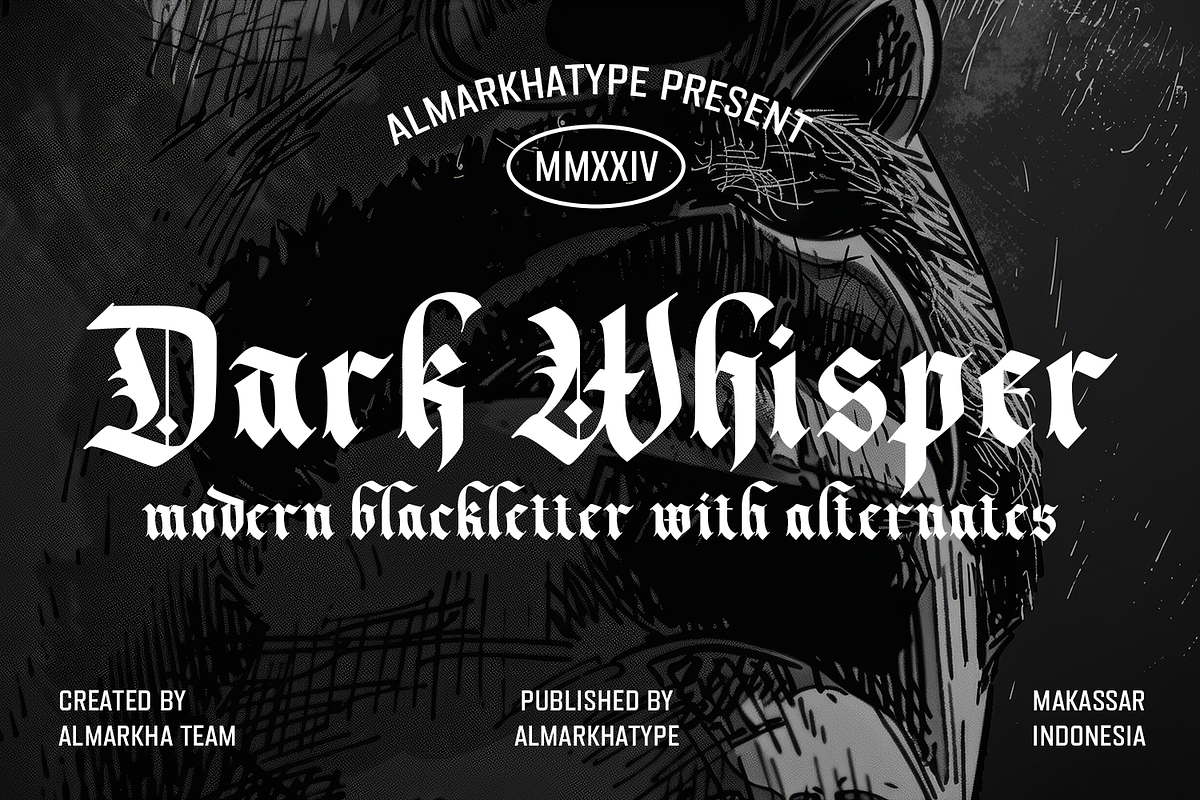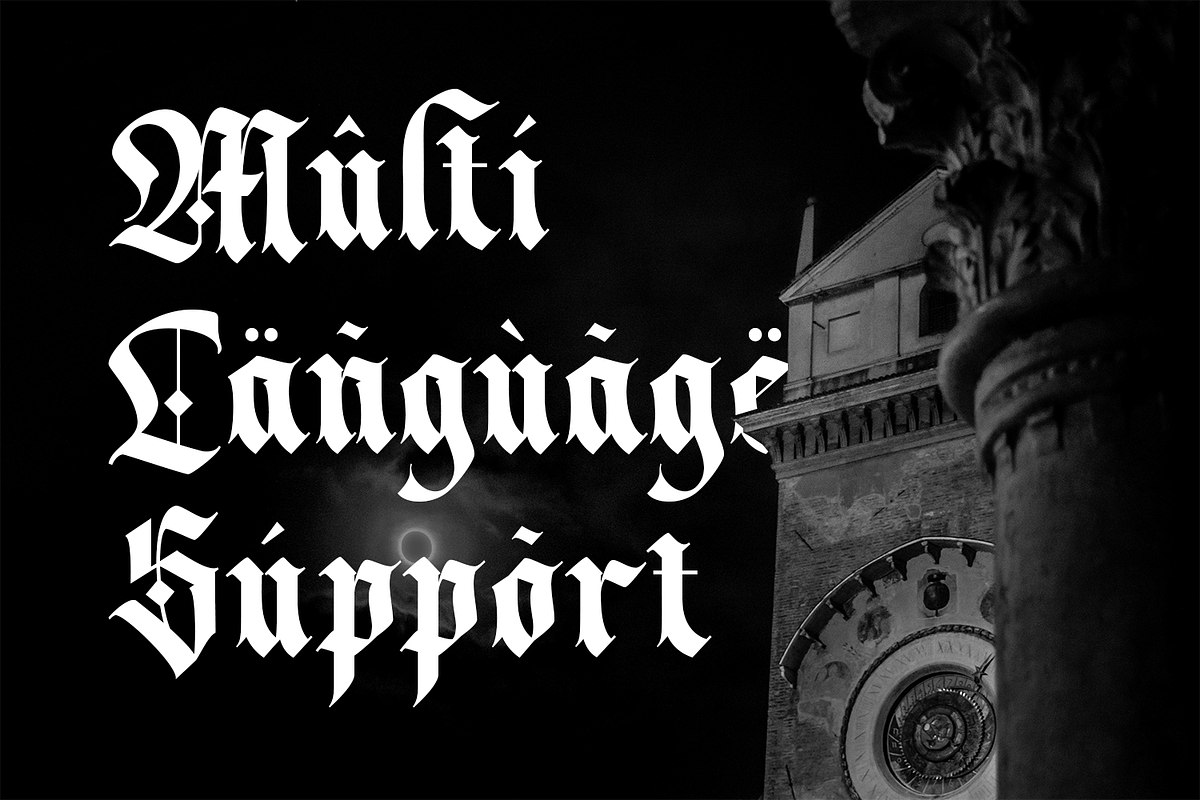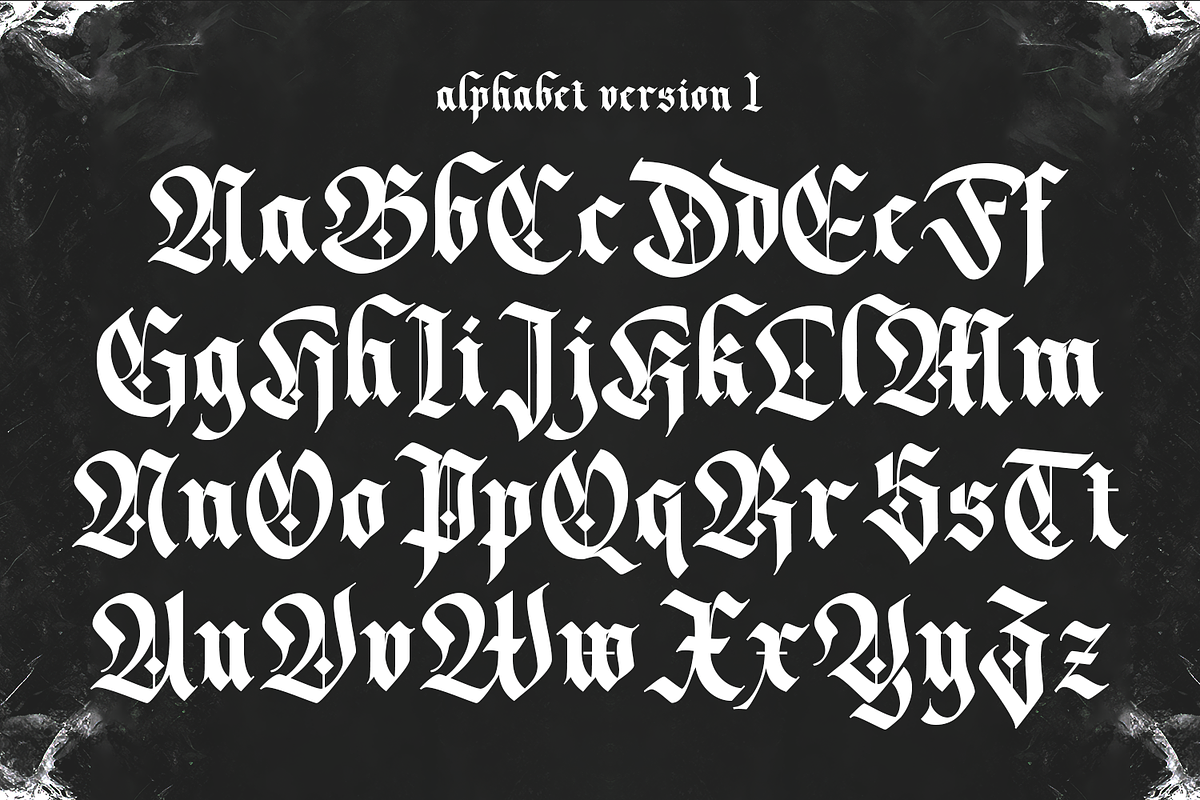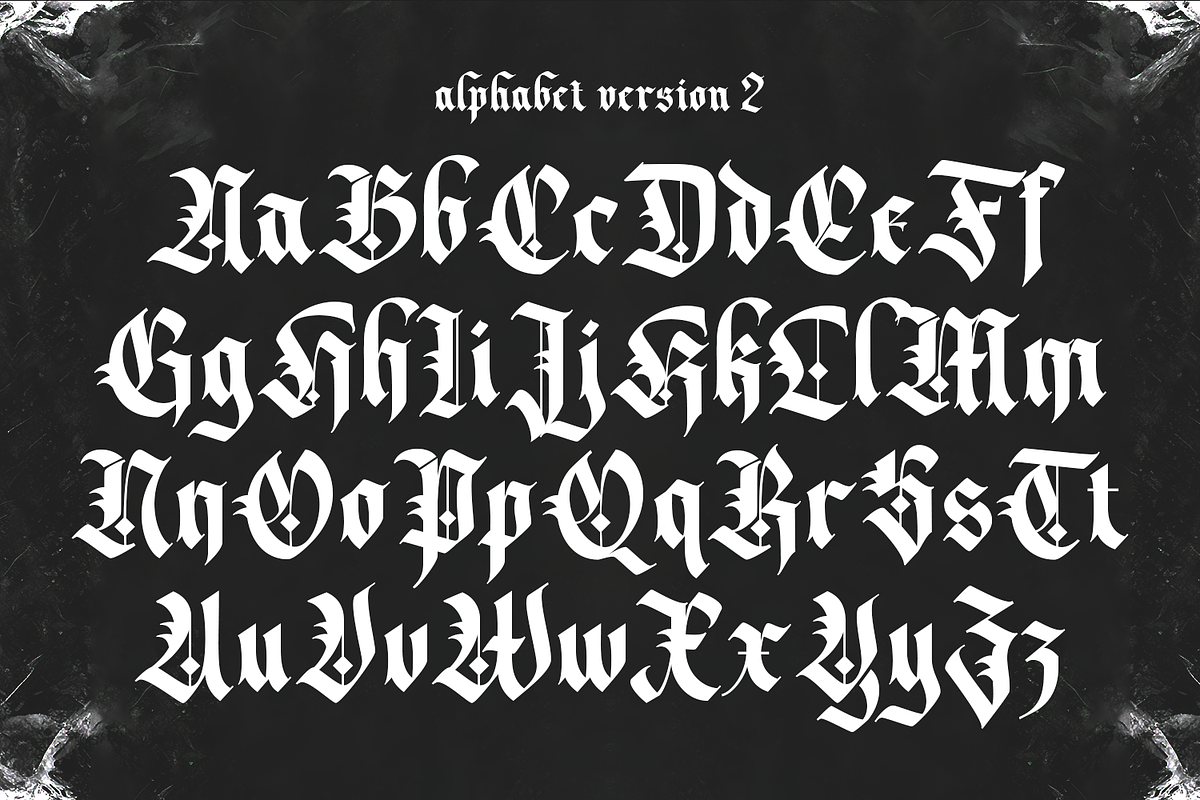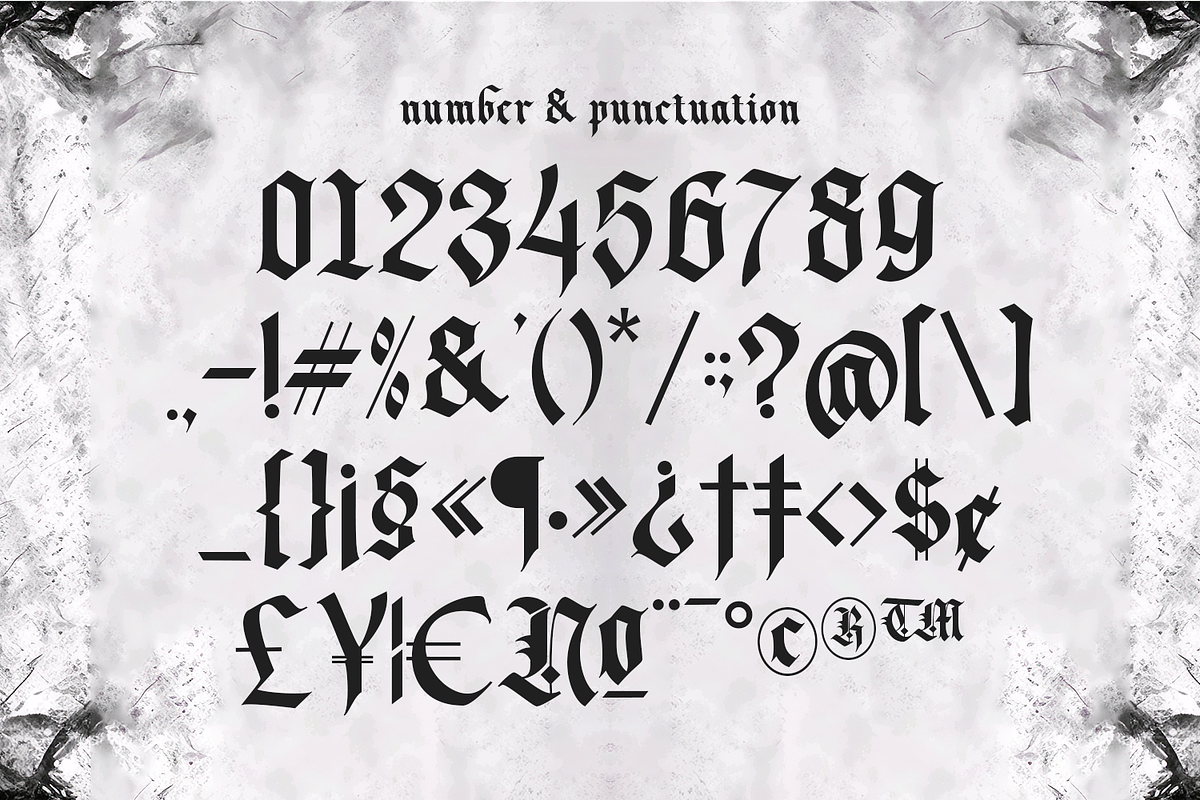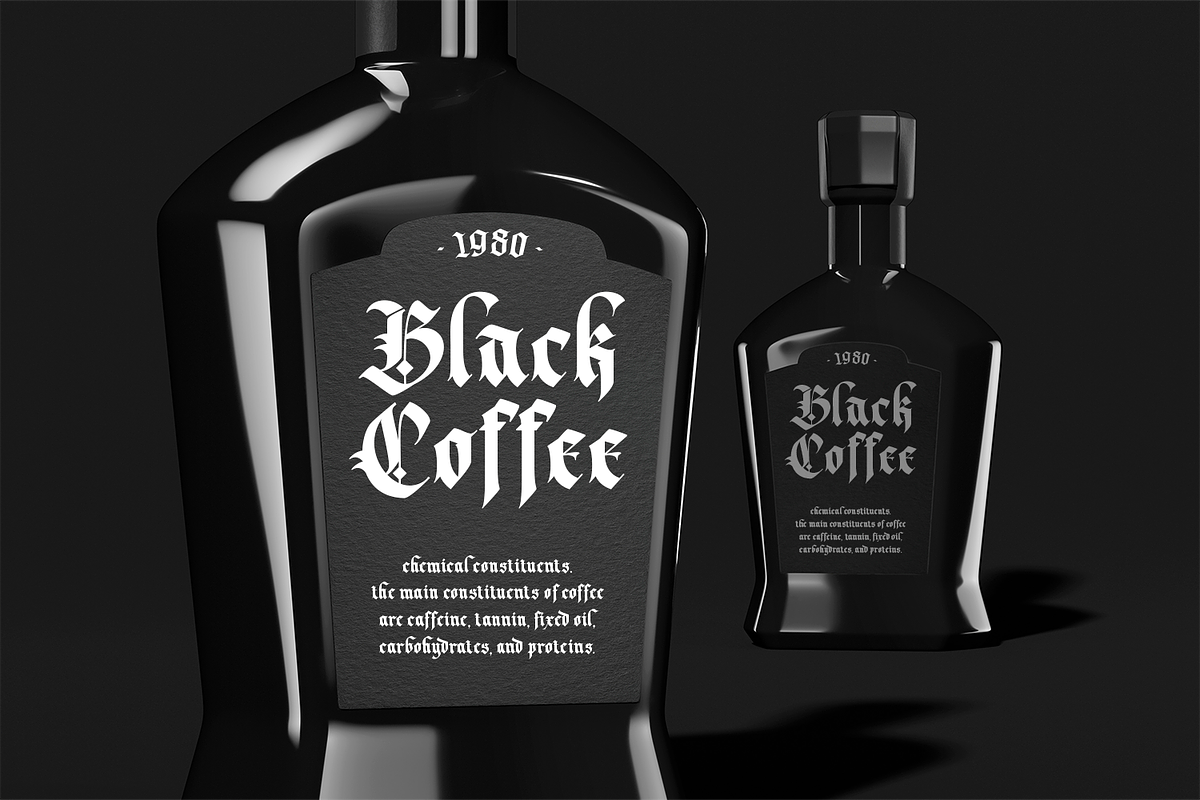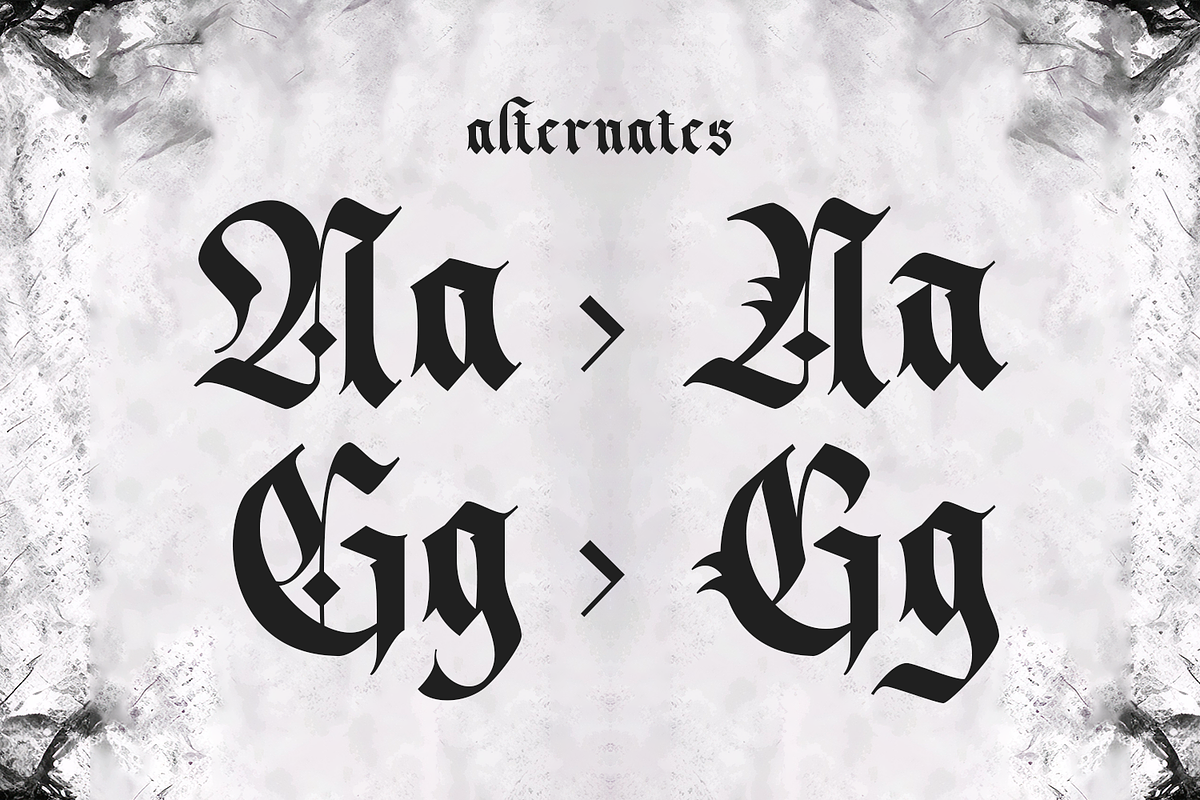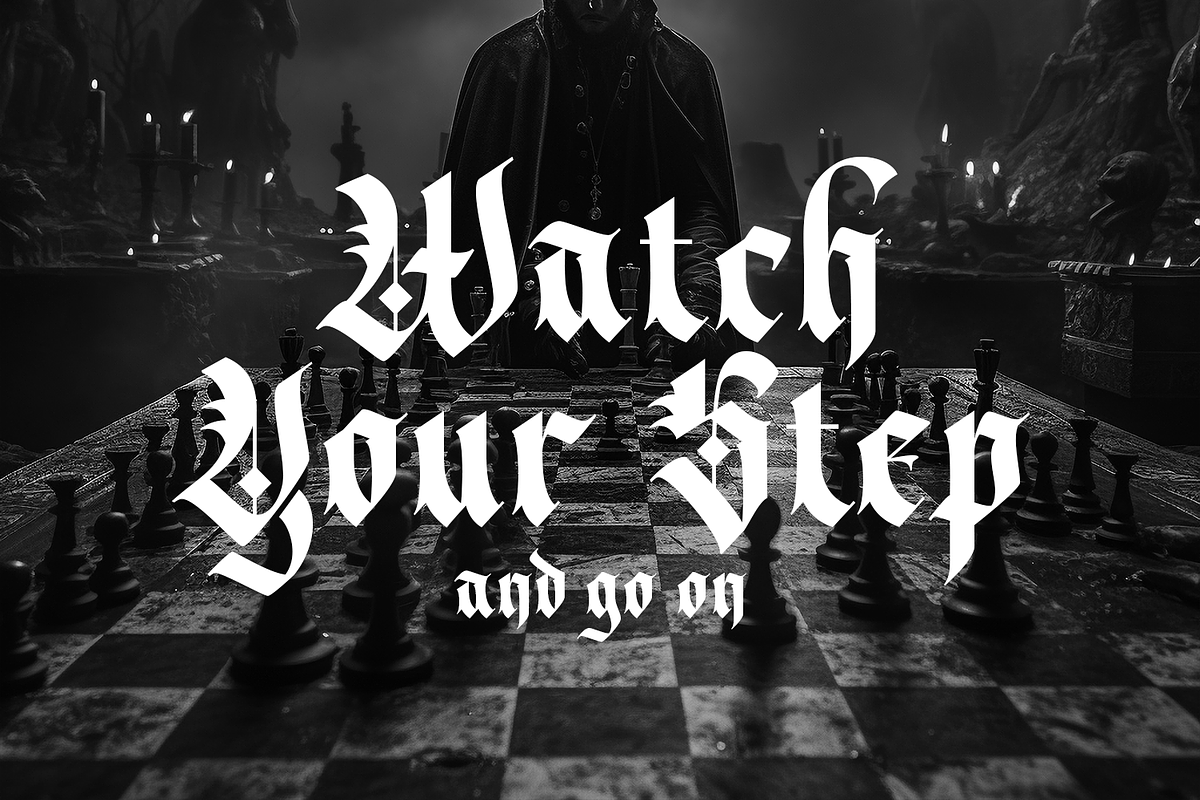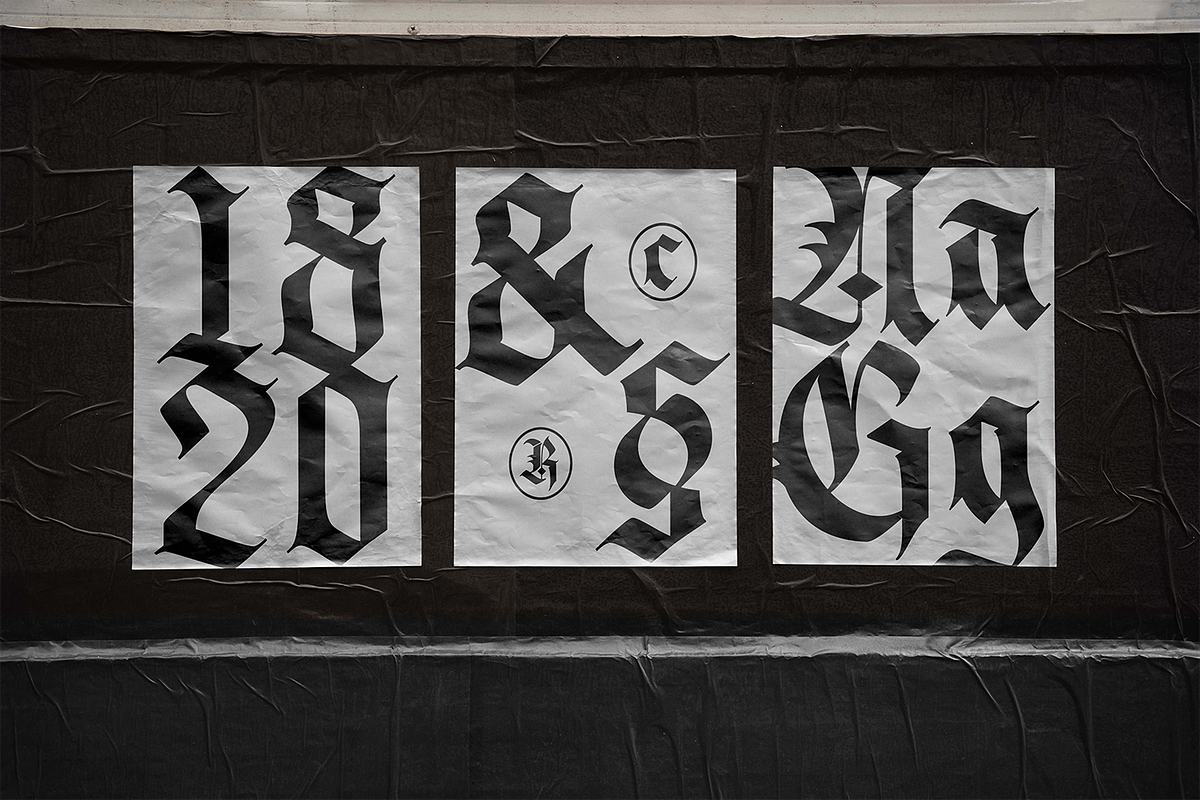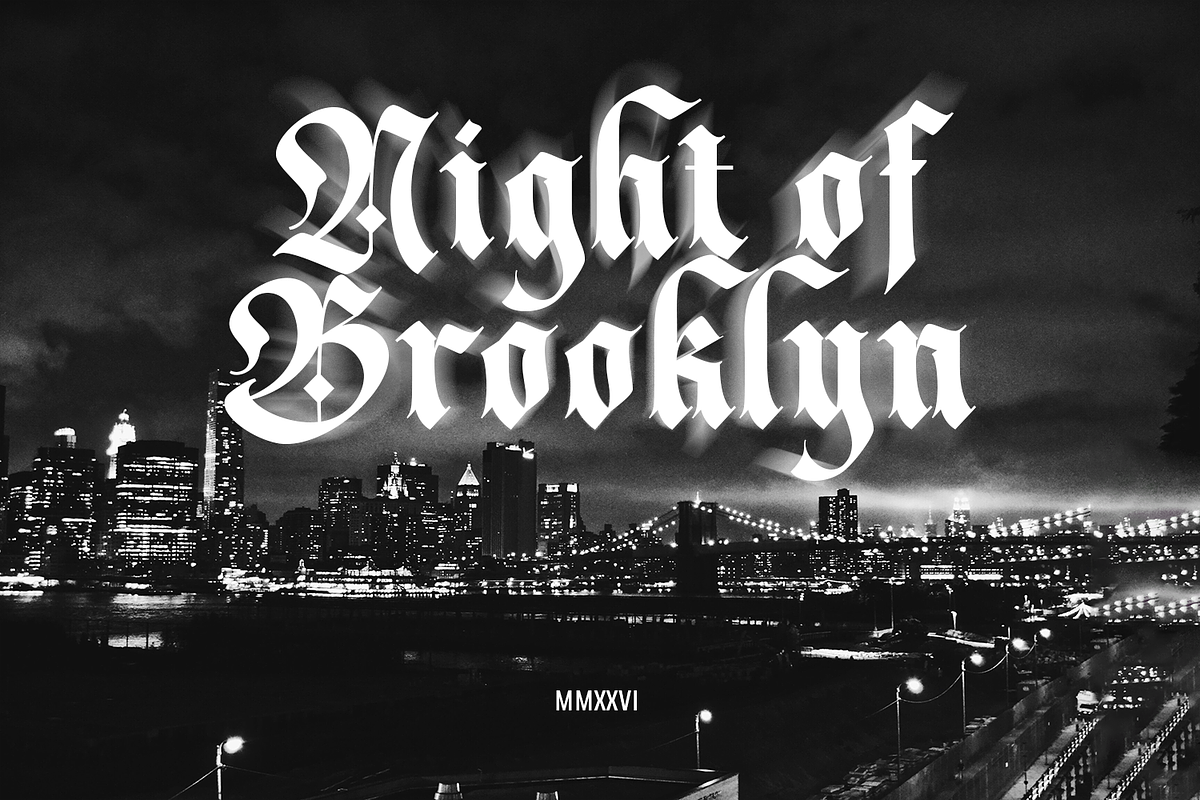
Dark Whisper – Fierce Blackletter
Creating a font inspired by the Old English style, specifically Fraktur Blackletter, imbues it with a bold and fierce aesthetic. This font is ideal for various design purposes, particularly those requiring a strong and dramatic presence, such as metal logos, tittle covers, and other themes where a powerful and intense look is desired. The intricate and sharp details of the Fraktur Blackletter style give the font a distinctive and memorable appearance, making it perfect for conveying strength and elegance in graphic design projects.
- Ligatures glyphs
- Alternate glyphs